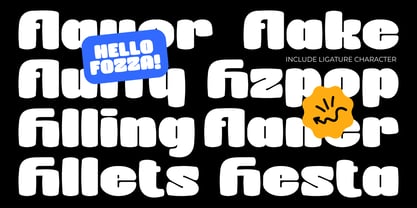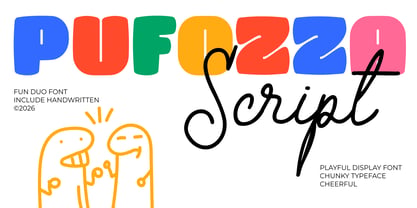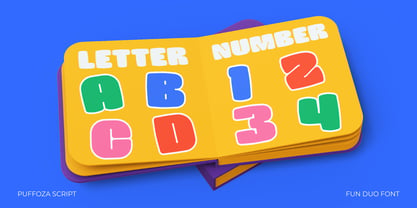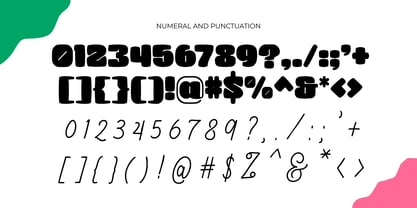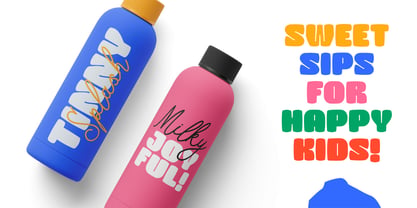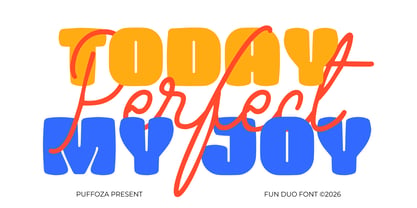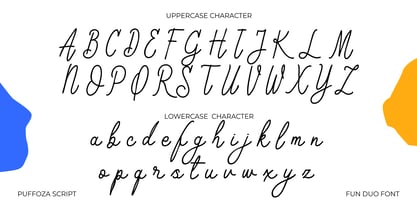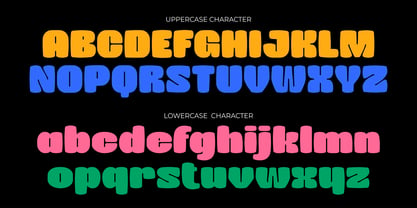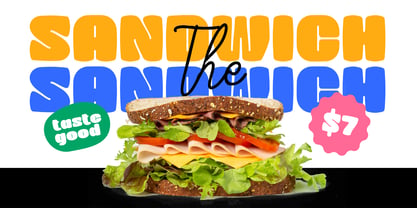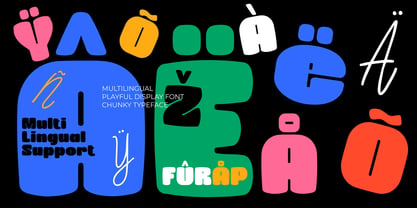
Puffoza
Puffoza Script is a fun duo font that brings together two distinct personalities in one cheerful package — a chunky, colorful playful display font paired with a natural, flowing handwritten script. Together, they create a versatile combination perfect for any project that needs warmth, energy, and a big smile.
Whether you're designing for kids, parties, branding, or social media — Puffoza Script gives you the flexibility to mix and match both styles for an eye-catching result every time.
✦ PERFECT FOR
• Children's book covers & educational materials
• Party & birthday invitations
• Logo & brand identity for playful brands
• Greeting cards & quotes
• Social media graphics & thumbnails
• Product packaging
• YouTube thumbnails & digital ads
• Game UI & app design